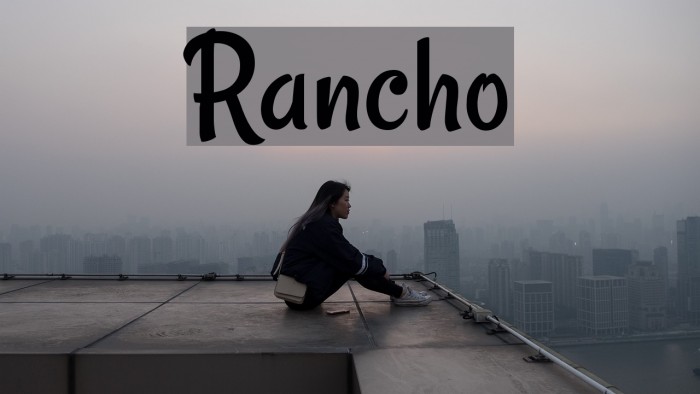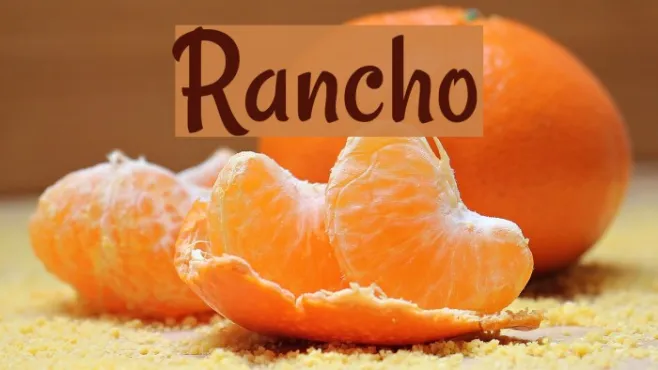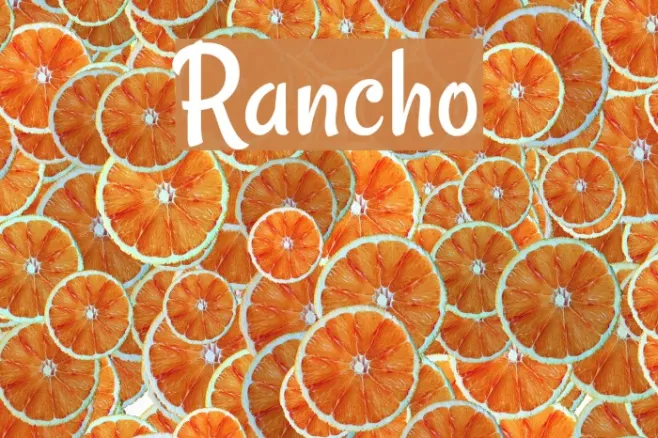
Rancho Font
This font exudes a playful and casual vibe, characterized by its handwritten style with a slight slant. The strokes are smooth and rounded, giving it a friendly and approachable appearance. The uppercase letters are bold and slightly wider, while the lowercase letters maintain a consistent flow with a touch of whimsy. The numerals are clear and legible, matching the overall style of the alphabet. Special characters are well-integrated, maintaining the font's cohesive look. This font is ideal for projects that require a personal touch, such as invitations, greeting cards, or playful branding.
A playful, handwritten font with smooth, rounded strokes and a casual vibe.
- Proposed Projects: Ideal for invitations, greeting cards, playful branding, and personal projects.
- Category: Handwritten
- Overall Style: Casual, Playful
- Use Case: Headlines, Logos, Invitations